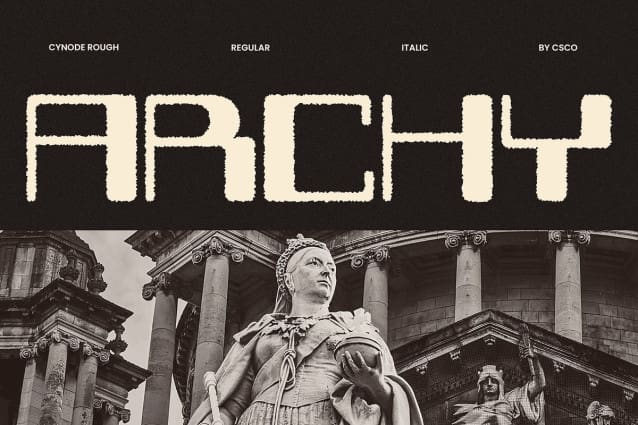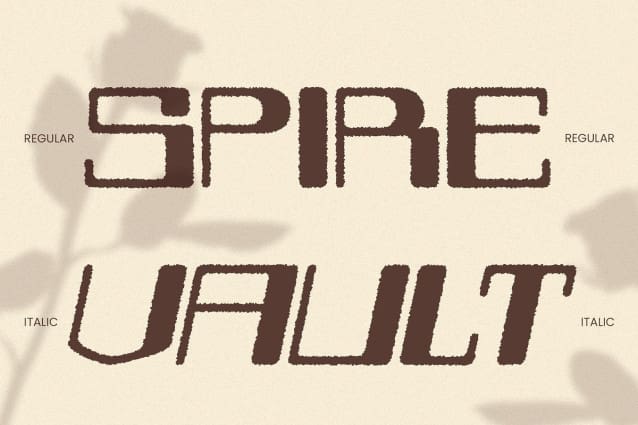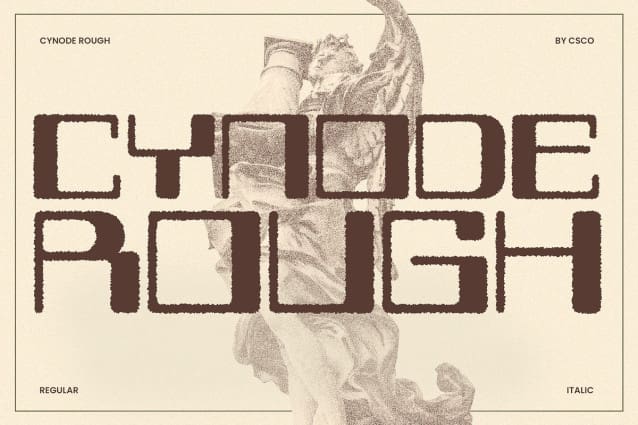
Cynode Rough Font
Cynode Rough Font is a modern display font designed for high-tech, futuristic, and industrial-inspired designs. Its bold, structured letterforms exude a sense of strength and innovation, making it an excellent choice for projects that require a cutting-edge, powerful aesthetic. Whether used for branding, advertising, or digital interfaces, this font brings a bold presence to any composition.
Rough Texture for an Industrial Feel What sets Cynode Rough apart is its distressed, textured effect, which adds a gritty, battle-worn look to its futuristic structure. This raw and rugged quality enhances the font’s mechanical and industrial appeal, making it an excellent choice for gaming visuals, tech branding, and cyberpunk-inspired projects. The weathered details create an authentic, high-energy impact that feels both tough and dynamic.
Perfect for Gaming, Tech, and Sci-Fi Themes With its aggressive yet refined design, Cynode Rough is ideal for projects that demand a bold and futuristic aesthetic. Whether it’s for gaming graphics, esports branding, tech startups, or science-fiction posters, this font ensures a strong and commanding visual presence. Its industrial undertones make it an excellent choice for urban, cyber, and dystopian themes that require a grunge-inspired futuristic edge.